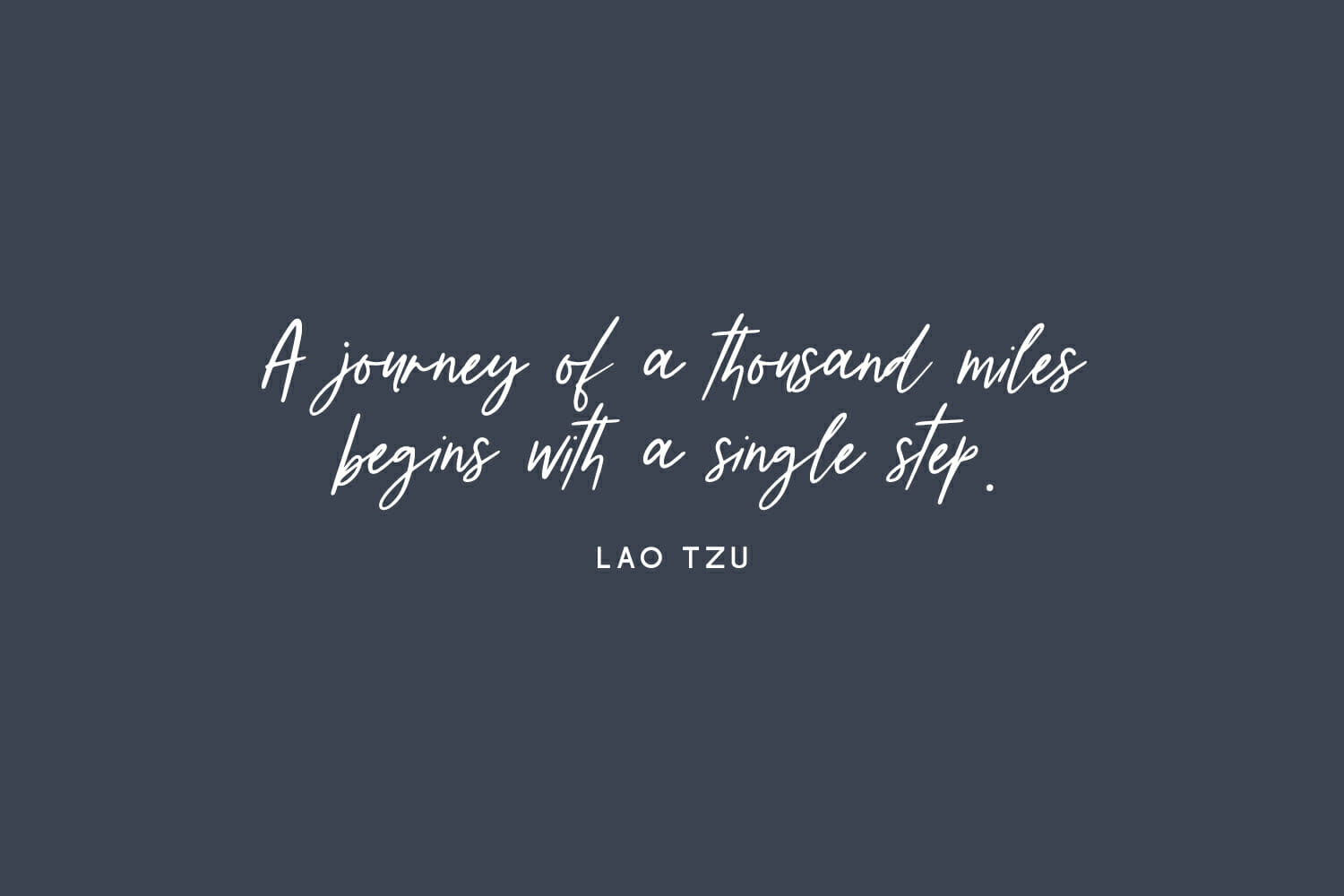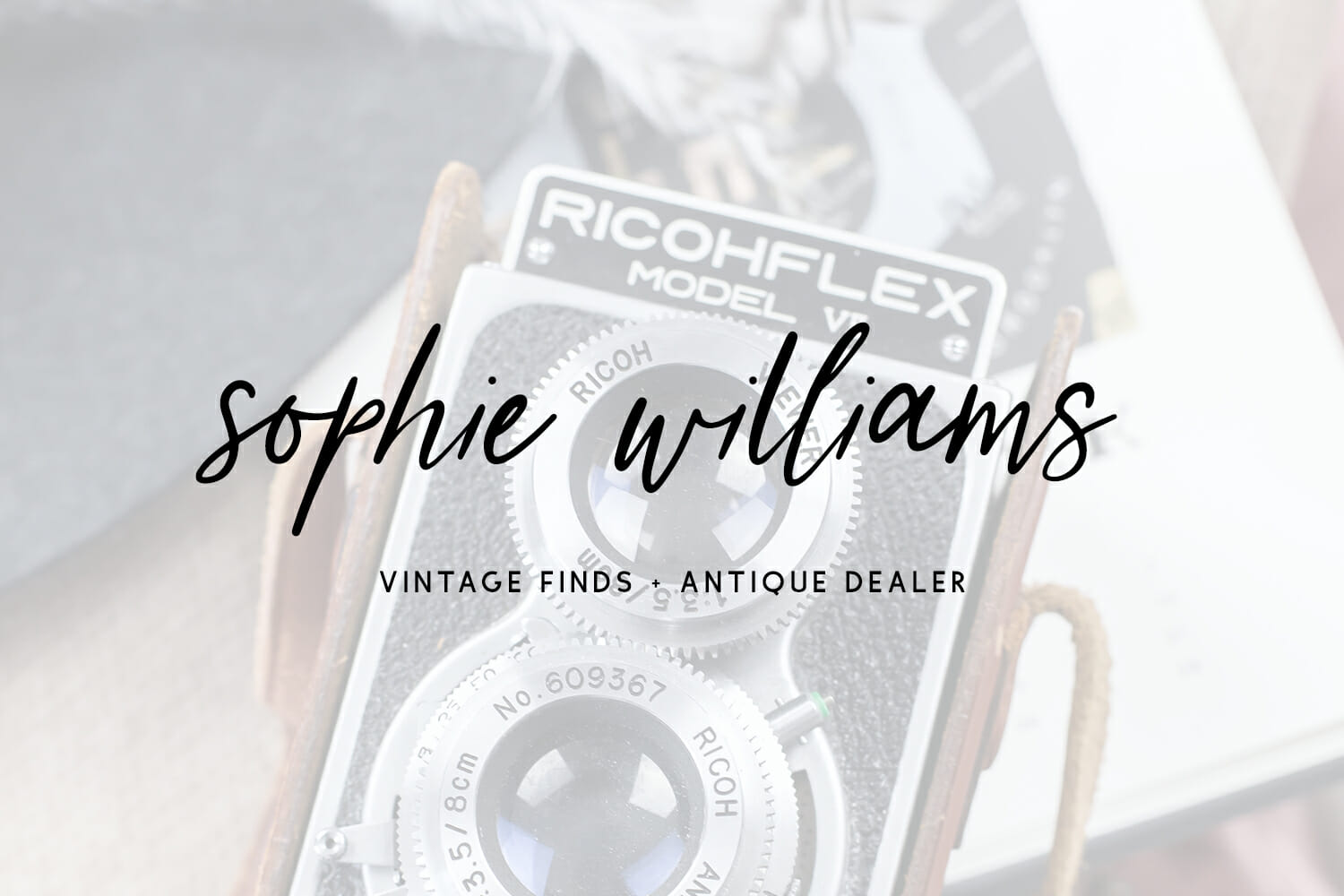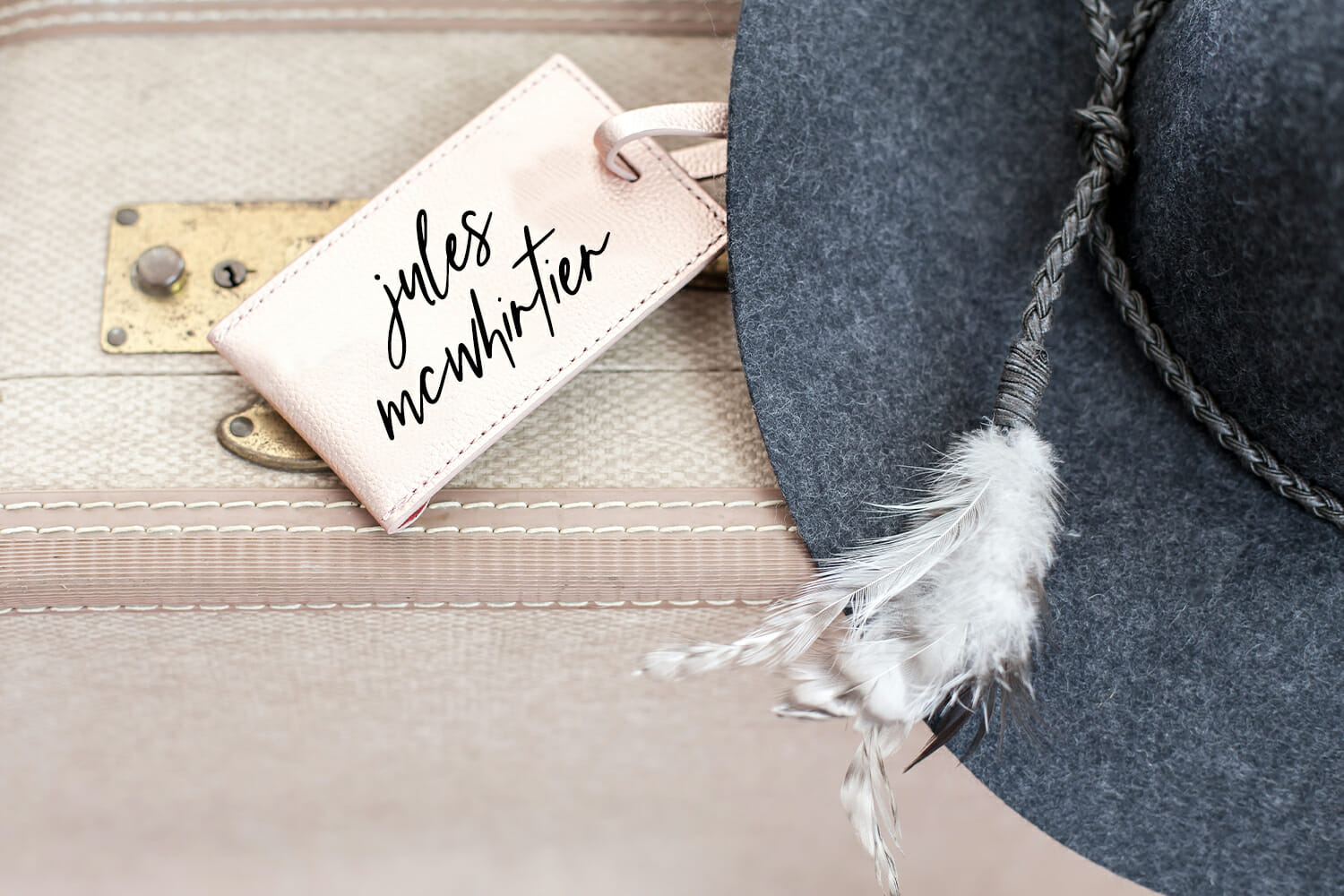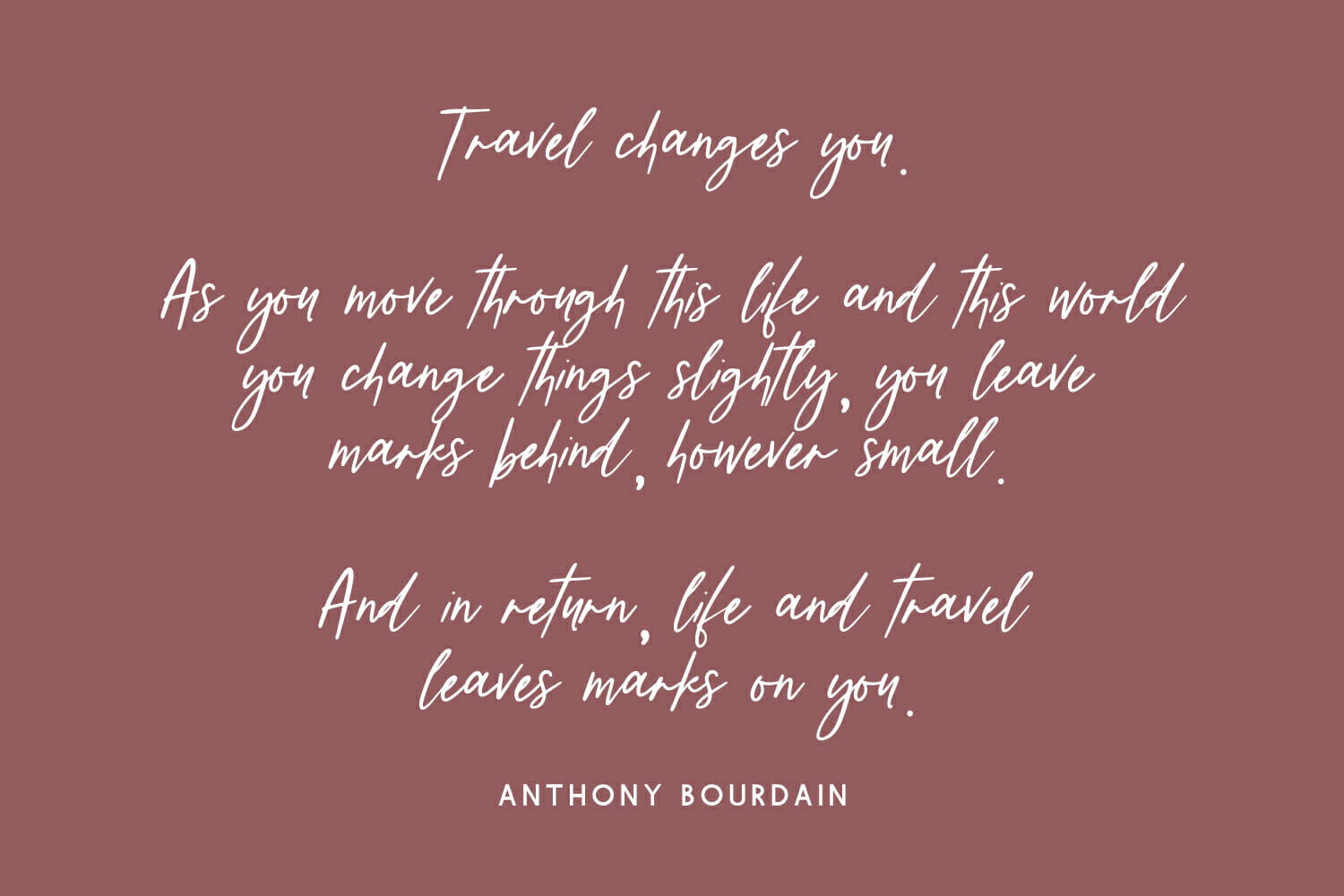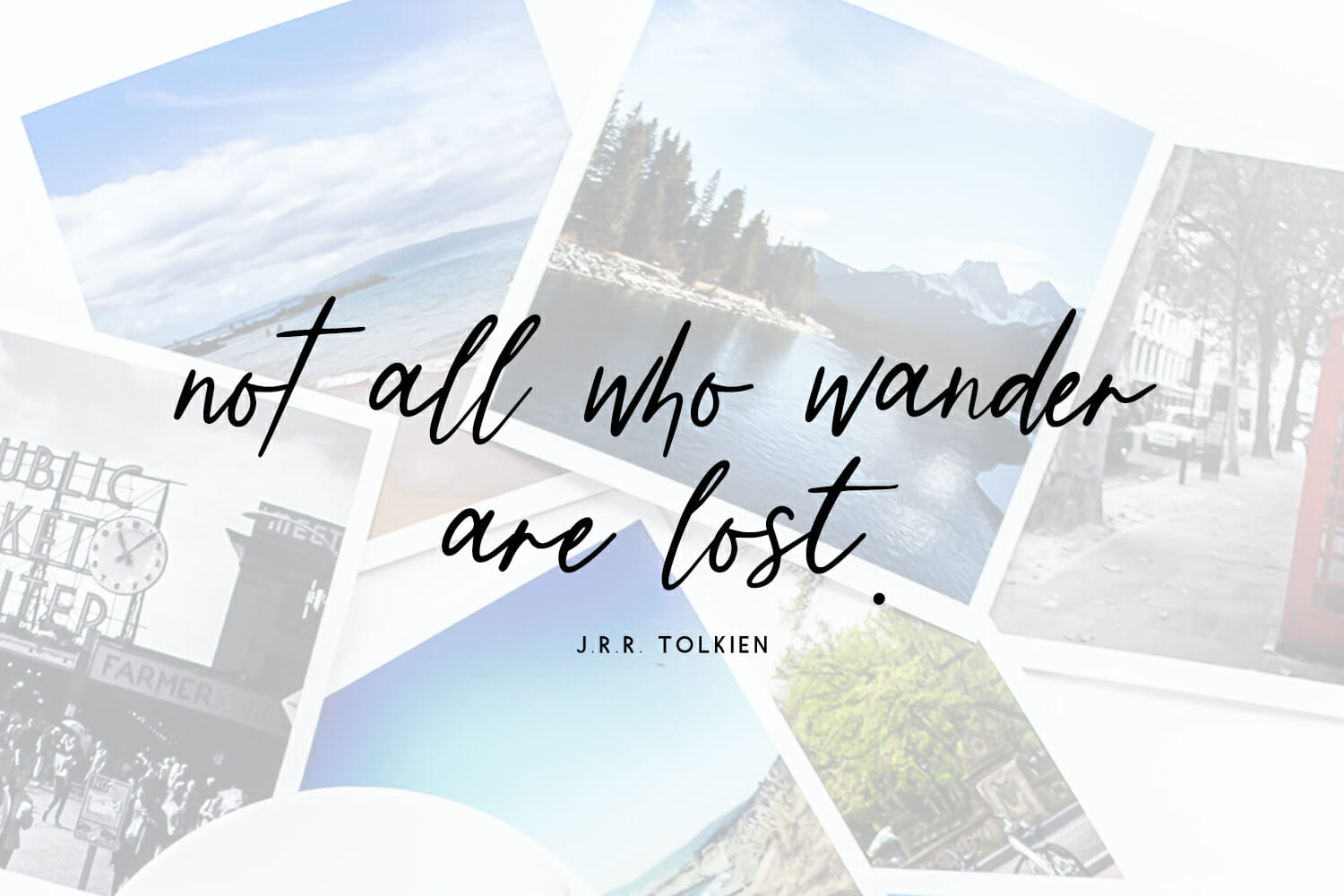
Lanarkshire Script
Introducing Lanarkshire Script, a signature style font that mimics the look and feel of a handwritten note.
Lanarkshire Script is best for:
– logos + branding
– website design + website accents – think travel blogs, fashion blogs, & more
– clean print design, like magazines + flyers
– header elements that need handwritten touch
– quote graphics for social media
Lanarkshire includes:
– 26 alternate lowercase characters